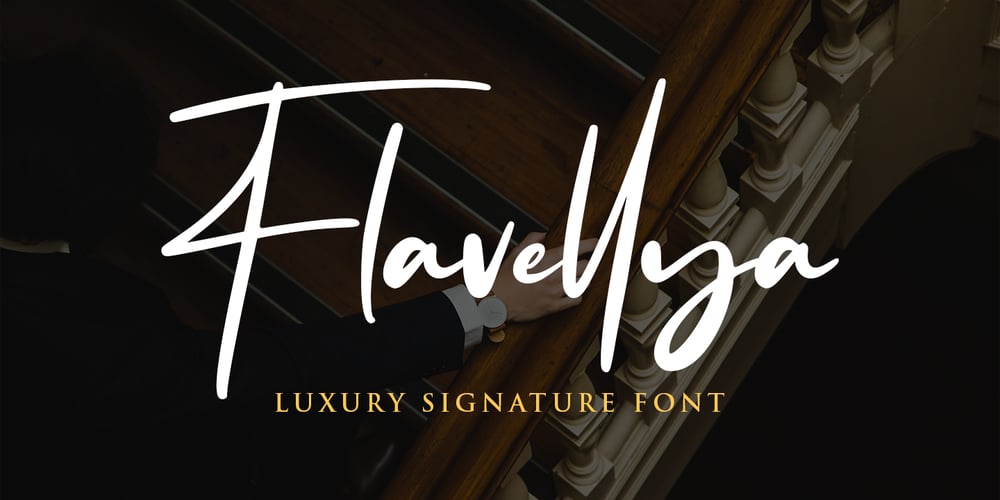
Flavellya
Flavellya font
Flavellya Font Family was designed by Virgiawan Listanto and published by Stringlabs Creative Studio. Flavellya contains 1 styles and family package options. Flavellya is luxurious, fun and elegant. This script is simply the ideal font for any branding project! The Flavellya font is a great choice to increase the prominence in your project. Although the typography is traditional, the basic elements are great.